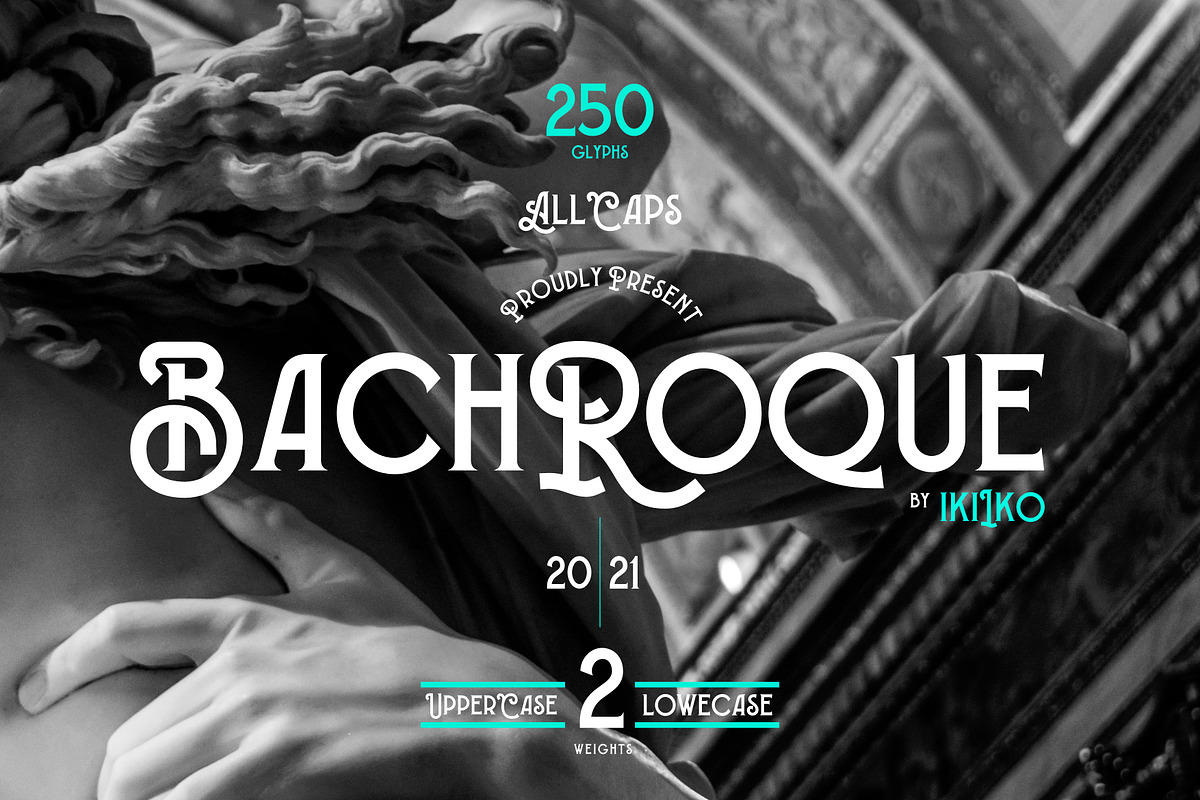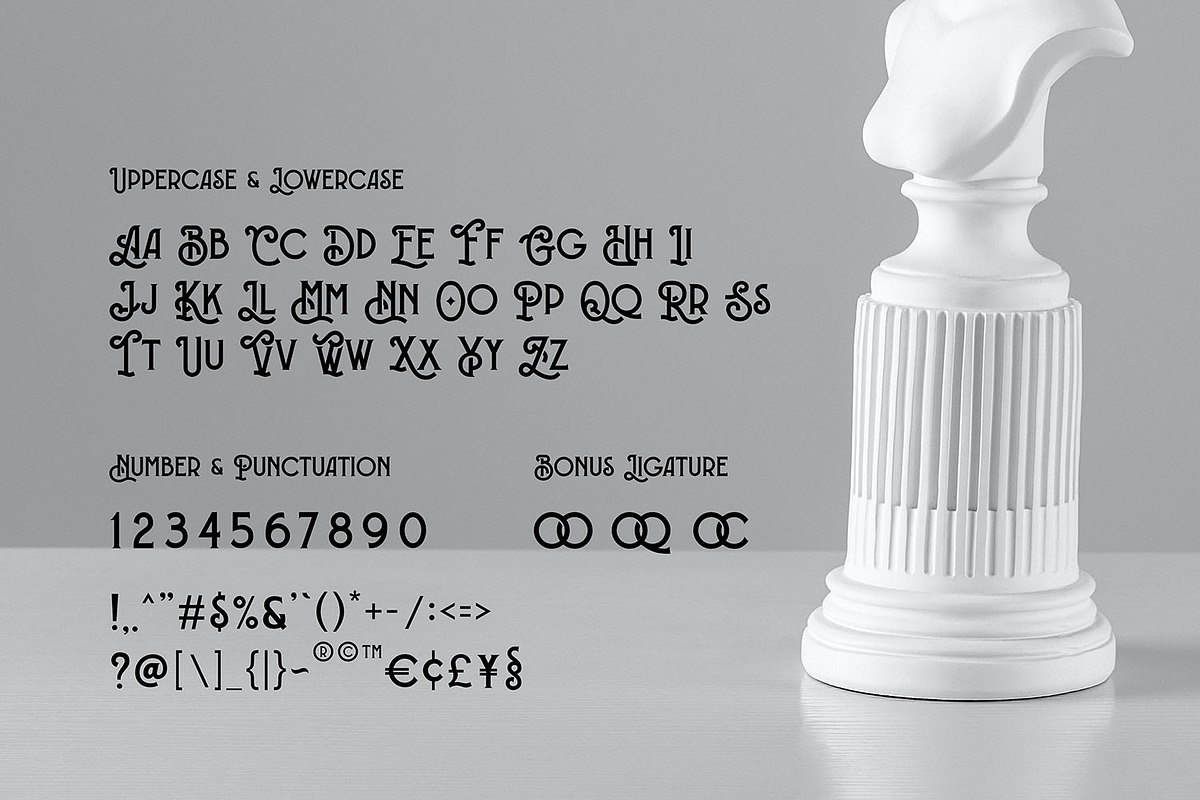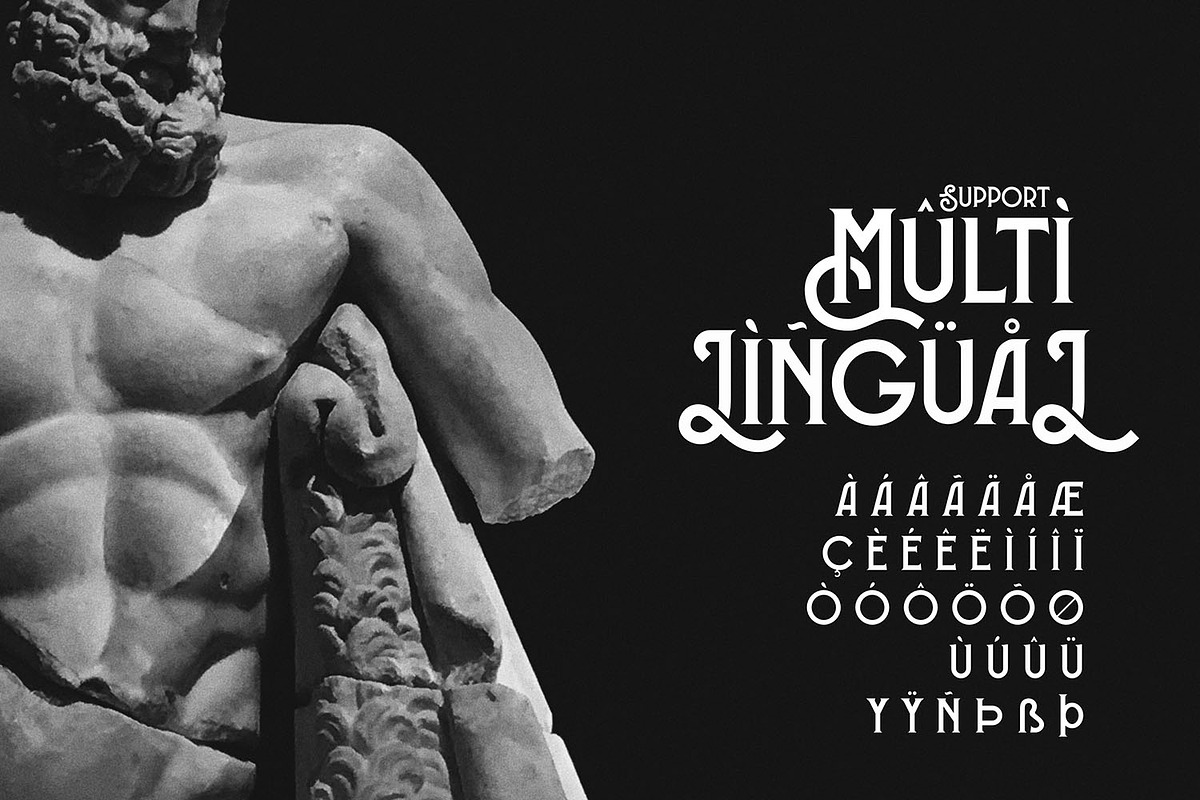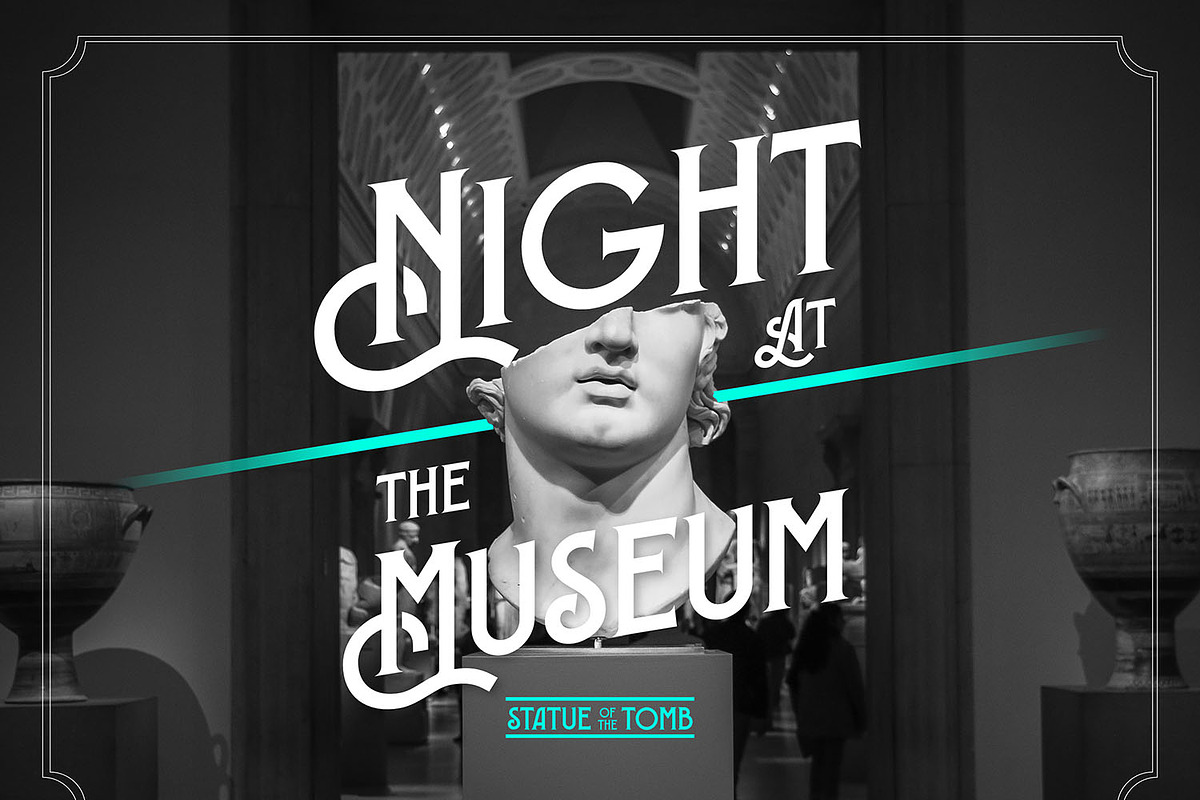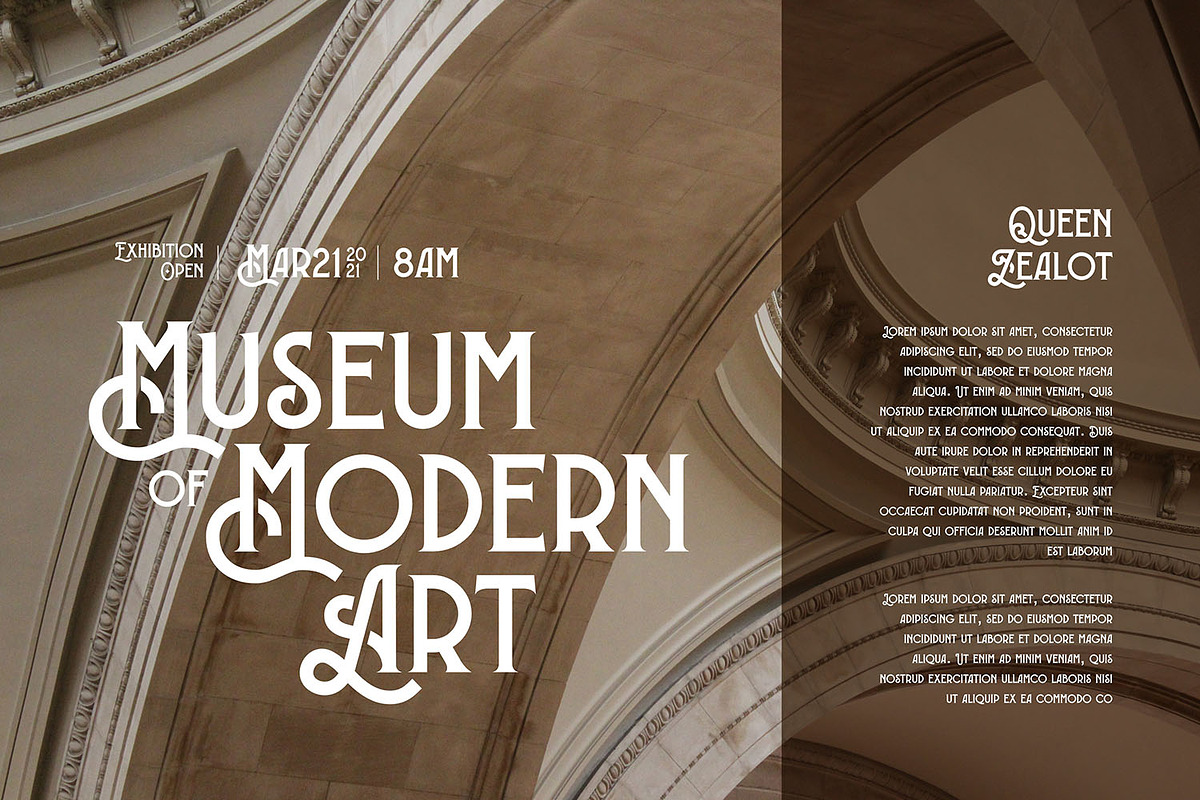
Bachroque Typeface
"Beauty of style and harmony and grace and good rhythm depend on simplicity" -Plato-
Proudly present Bachroque Typeface, created by ikiiko.
A classy stylish font inspired on baroque era meet modern look. A good combination to create display page or layout with strong style. This font have unique gesture for your brand logo, poster, book cover, t-shirt, label, magazine, header/ headline and another project to a have bold and unique classy look.
- Numbers & Punctuation (Bonus Ligature)